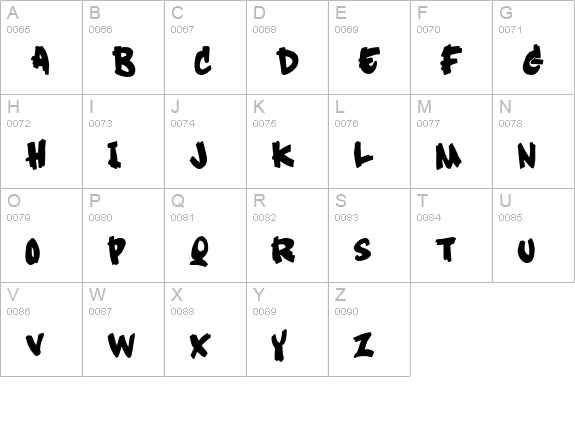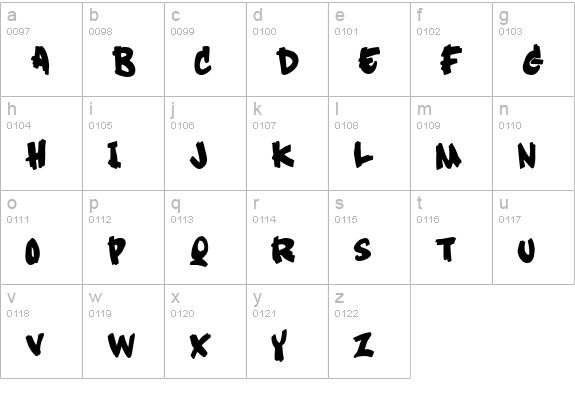
Soft Sugar plain Font Details
Soft Sugar plain font is a delightful and versatile typeface that exudes a sense of elegance and charm. With its smooth curves and soft edges, this font is perfect for adding a touch of sophistication to any design project. The simplicity of Soft Sugar plain font makes it incredibly versatile, making it suitable for a wide range of applications. Whether you're creating a logo, designing a website, or working on a branding project, this font will bring a sense of modernity and style to your work. One of the best things about Soft Sugar plain font is that it is free! You read that right - this stunning font is freely available to download at FontsMarket.com. So, not only will you be able to enhance your designs with this beautiful typeface, but you can also do so without breaking the bank. Downloading Soft Sugar plain font from FontsMarket.com is incredibly easy. Simply visit the website, locate the font, and with just a few clicks, it will be ready to use in your design software. With its seamless installation process, you can quickly start incorporating Soft Sugar plain font into your projects and watch as it elevates your designs to new heights. So, why wait? Take advantage of this amazing opportunity and download Soft Sugar plain font for free at FontsMarket.com. Whether you're a professional designer or a hobbyist, this font is sure to become a valuable addition to your collection. Add a touch of elegance and sophistication to your designs today with Soft Sugar plain font.